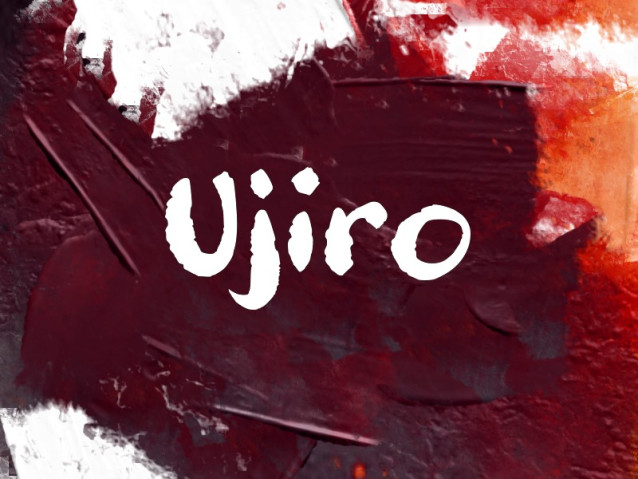
Ujiro Font
Ujiro Font is the perfect display brush font for comic book style applications. Bold and unique, this handcrafted font will help you create stunning designs with authentic style.